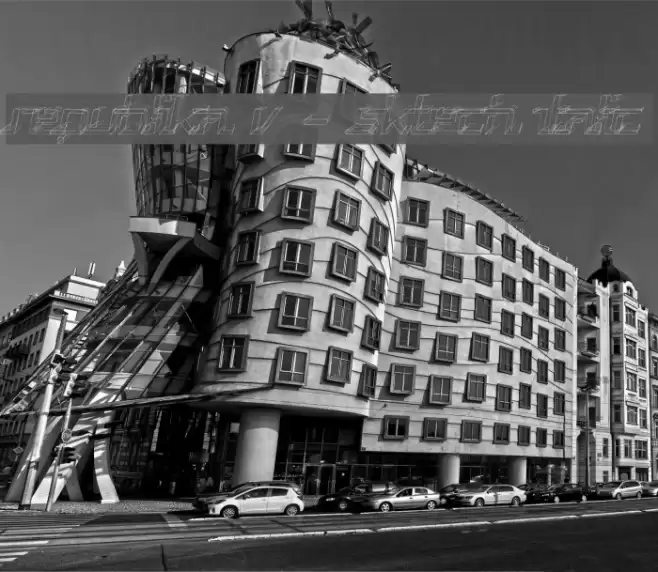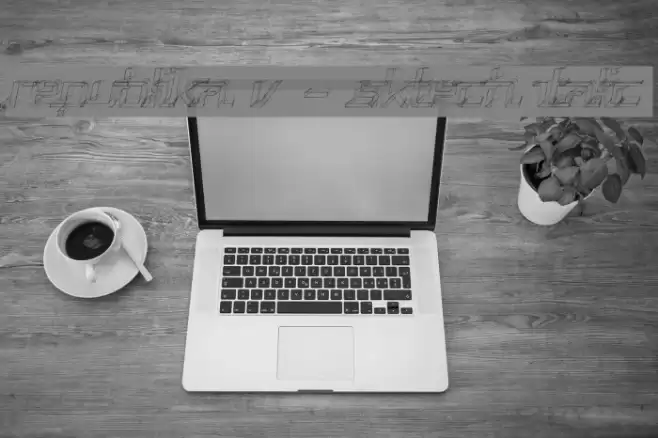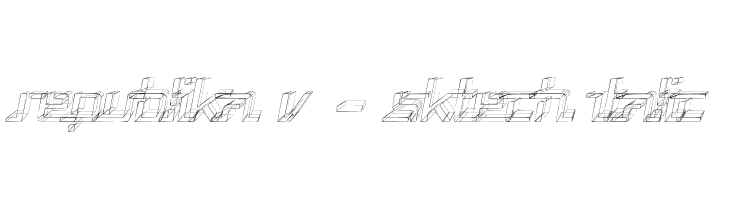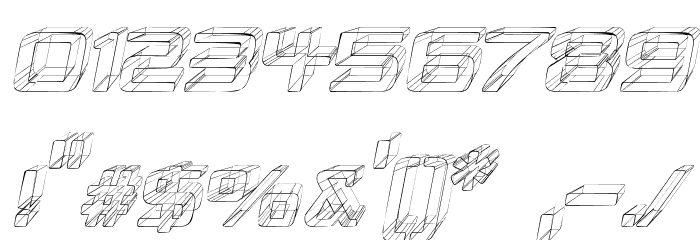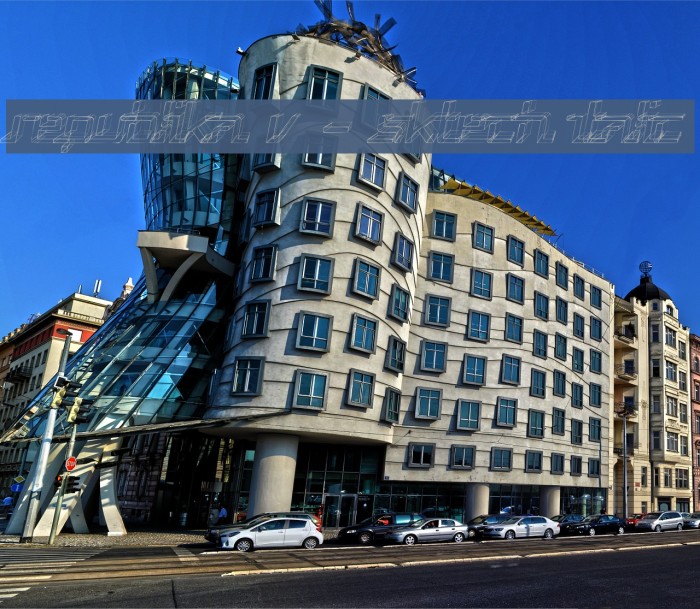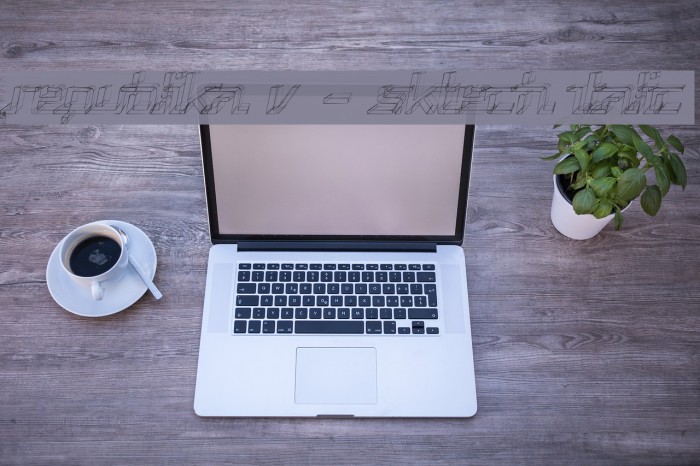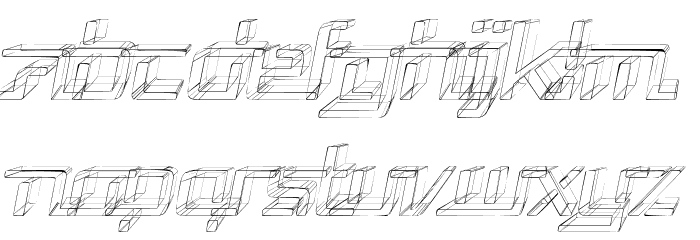
Republika V - Sktech Italic Font
Republika V - Sktech Italic Description
This font features a dynamic and futuristic style, characterized by its sketch-like, three-dimensional appearance. The letters are italicized, giving a sense of motion and speed. Each character is outlined with multiple overlapping lines, creating a layered effect that adds depth and complexity. The font maintains a consistent slant across all characters, enhancing its cohesive look. The numerals and special characters follow the same design principles, ensuring uniformity throughout. This font is ideal for projects that require a modern and edgy aesthetic.
A futuristic, sketch-style italic font with a three-dimensional effect from 3D fonts.
- Proposed Projects: Ideal for sci-fi themed designs, video game graphics, tech branding, and modern posters.